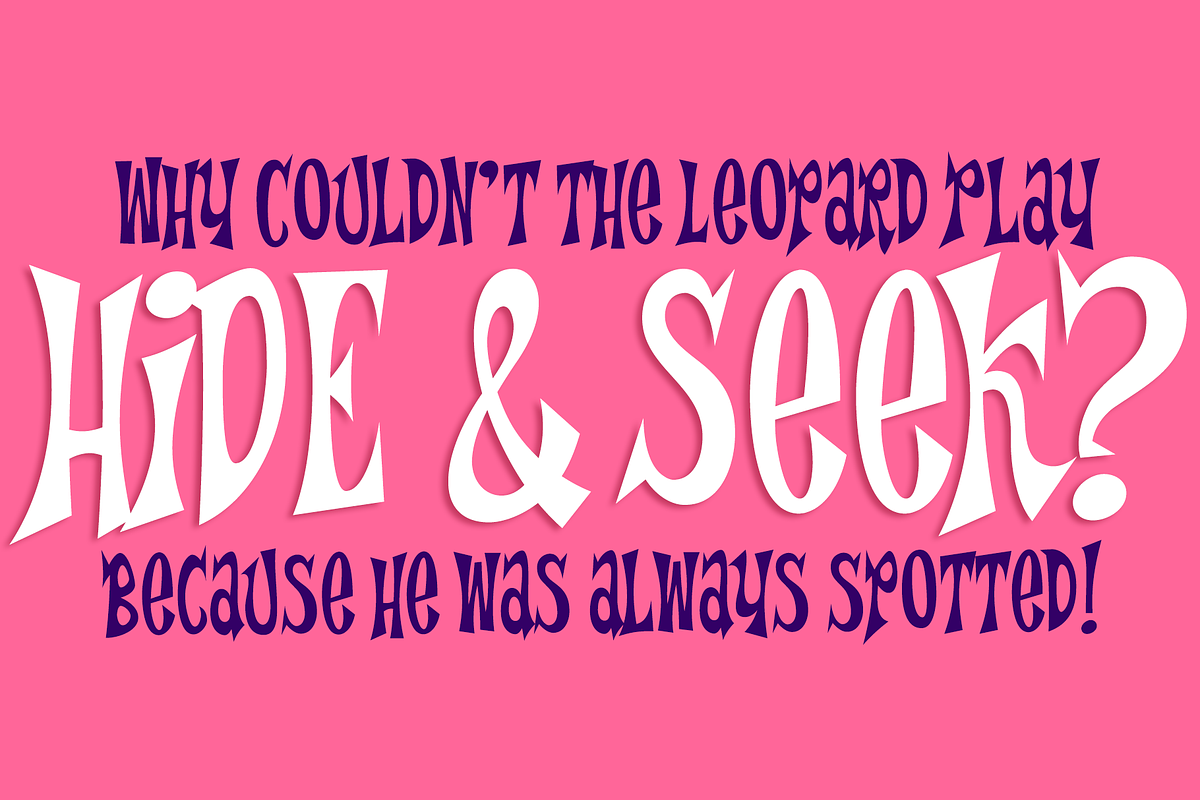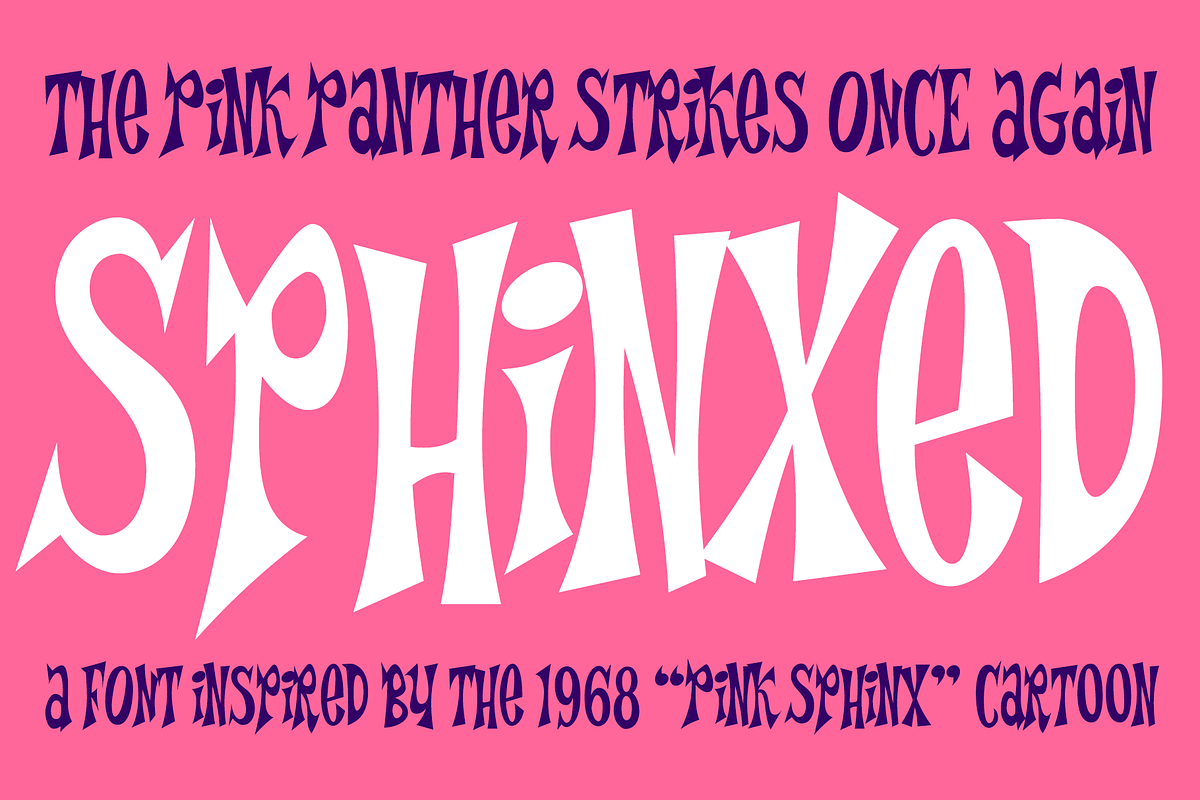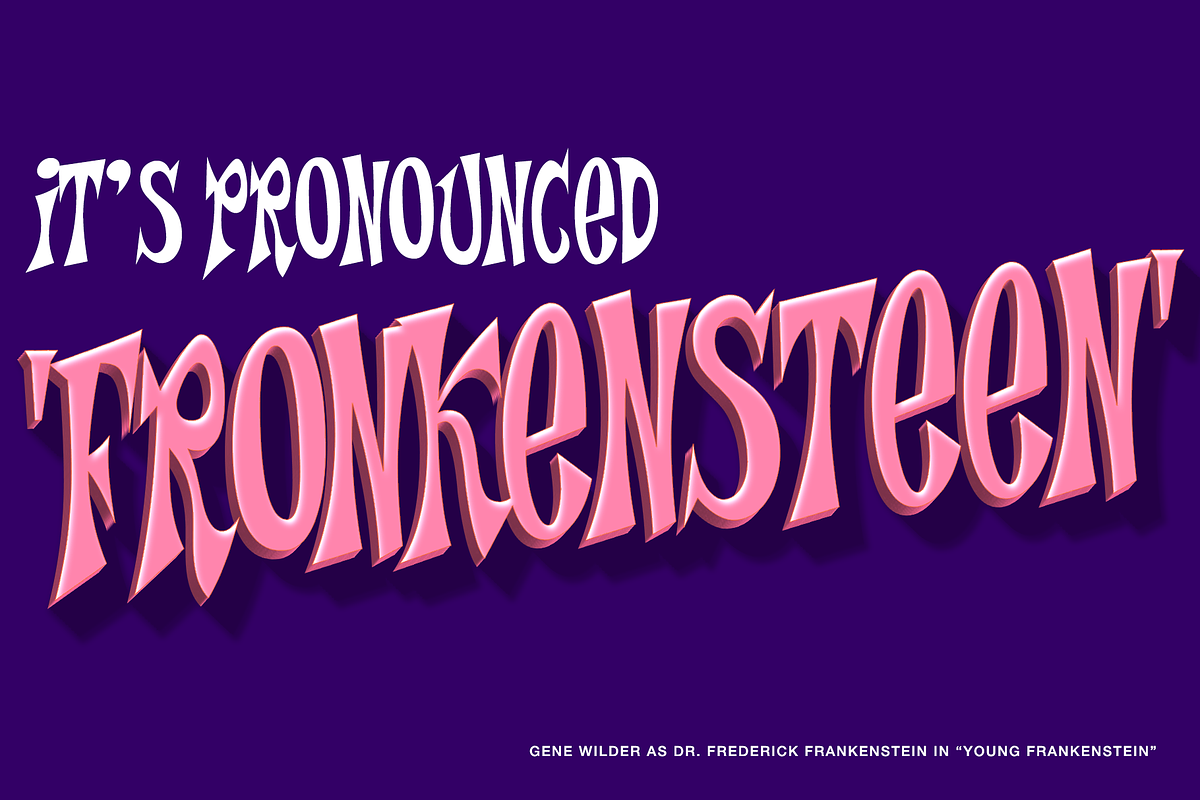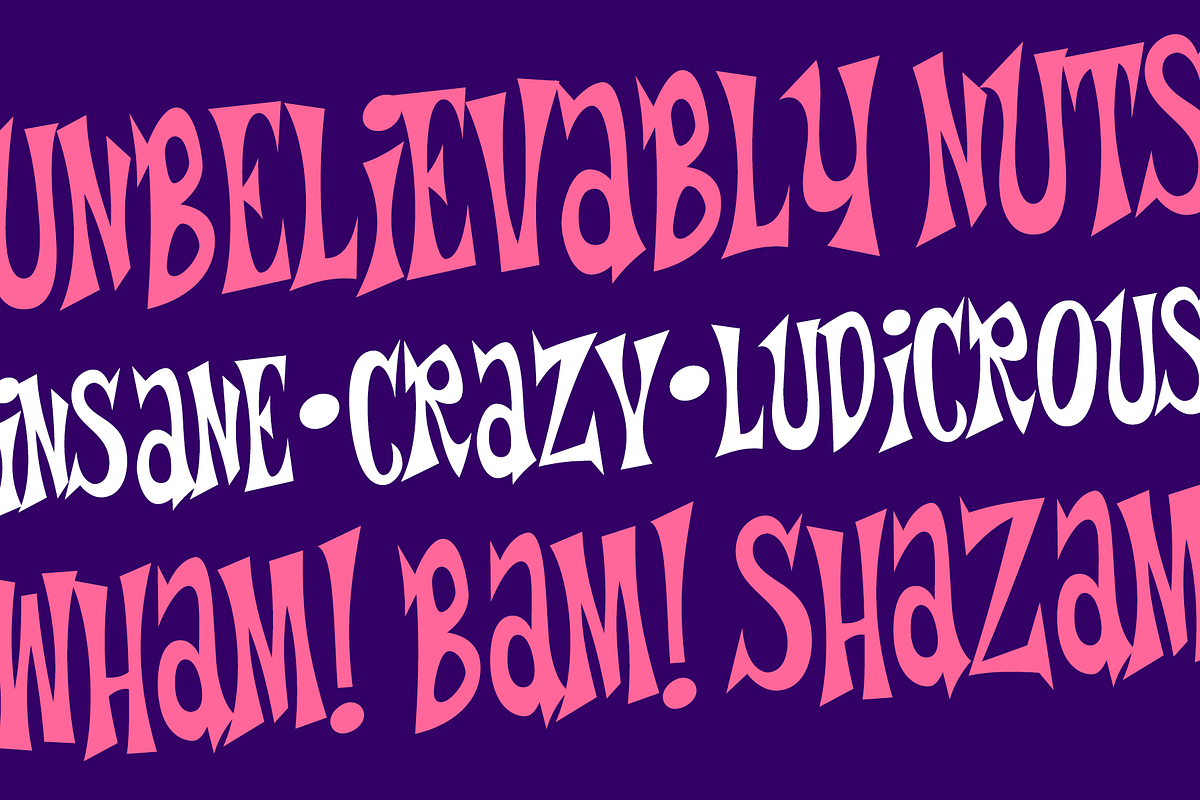
Sphinxed PB
Sphinxed PB is a recreation of the title lettering from the Season 5, Episode 19 1968 Pink Panther cartoon episode "Pink Sphinx". The lettering had both wedge and flare style serifs along with odd serif styles mixed in randomly and the hap-hazard collisions and drunken step stance just drew me into needing to make this digital.
So grab this font, "sphinx" up your designs with retro funky type today!